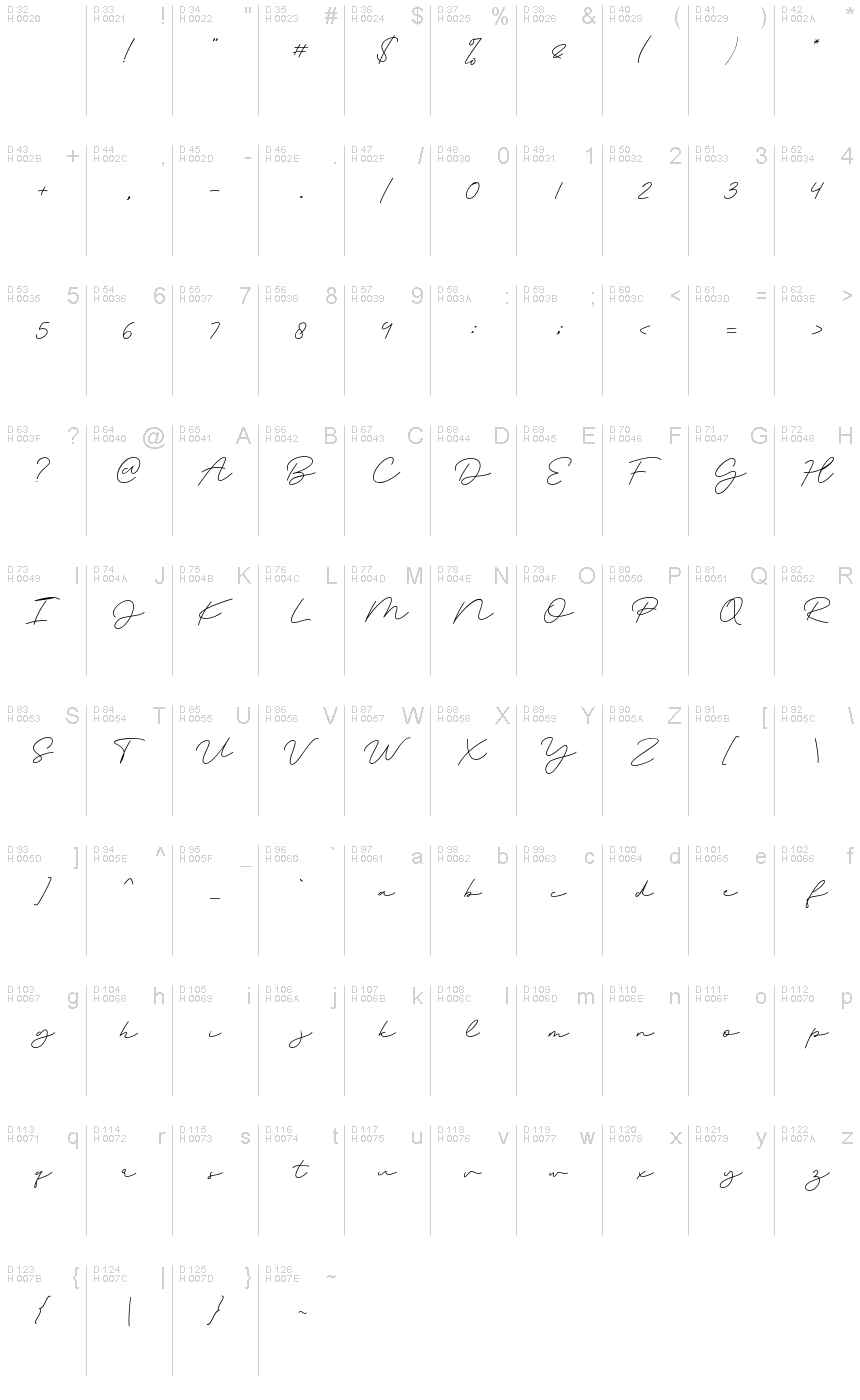
Magenta
Magenta is a captivating handwritten font that exudes a delicate, light-yet-expressive style. Crafted by Dharmas Studio, this font's fluid strokes and subtle flourishes evoke a sense of graceful sophistication. Its versatility shines through, making it an ideal choice for a wide range of design applications, from editorial layouts and stationery to branding and packaging.
The font's alluring aesthetic seamlessly blends the personal touch of handwritten calligraphy with a refined, modern sensibility, ensuring a distinct and memorable impression in any creative project.